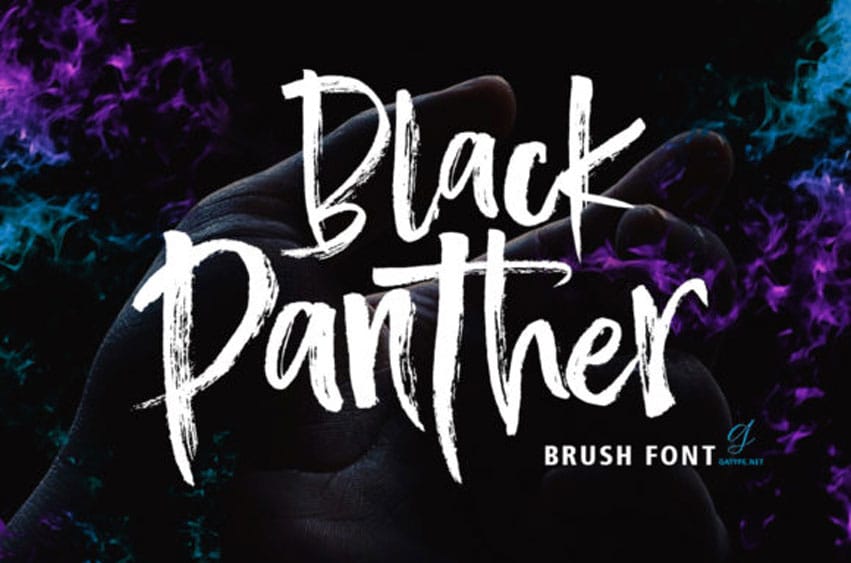
Black Panther Brush Font is a textured brush font that has a contemporary approach to design, with a handmade, natural, and irregular baseline.
Suitable for use in title design such as apparel, invitations, book titles, stationery design, quotes, branding, logos, greeting cards, t-shirts, packaging design, posters, and more.